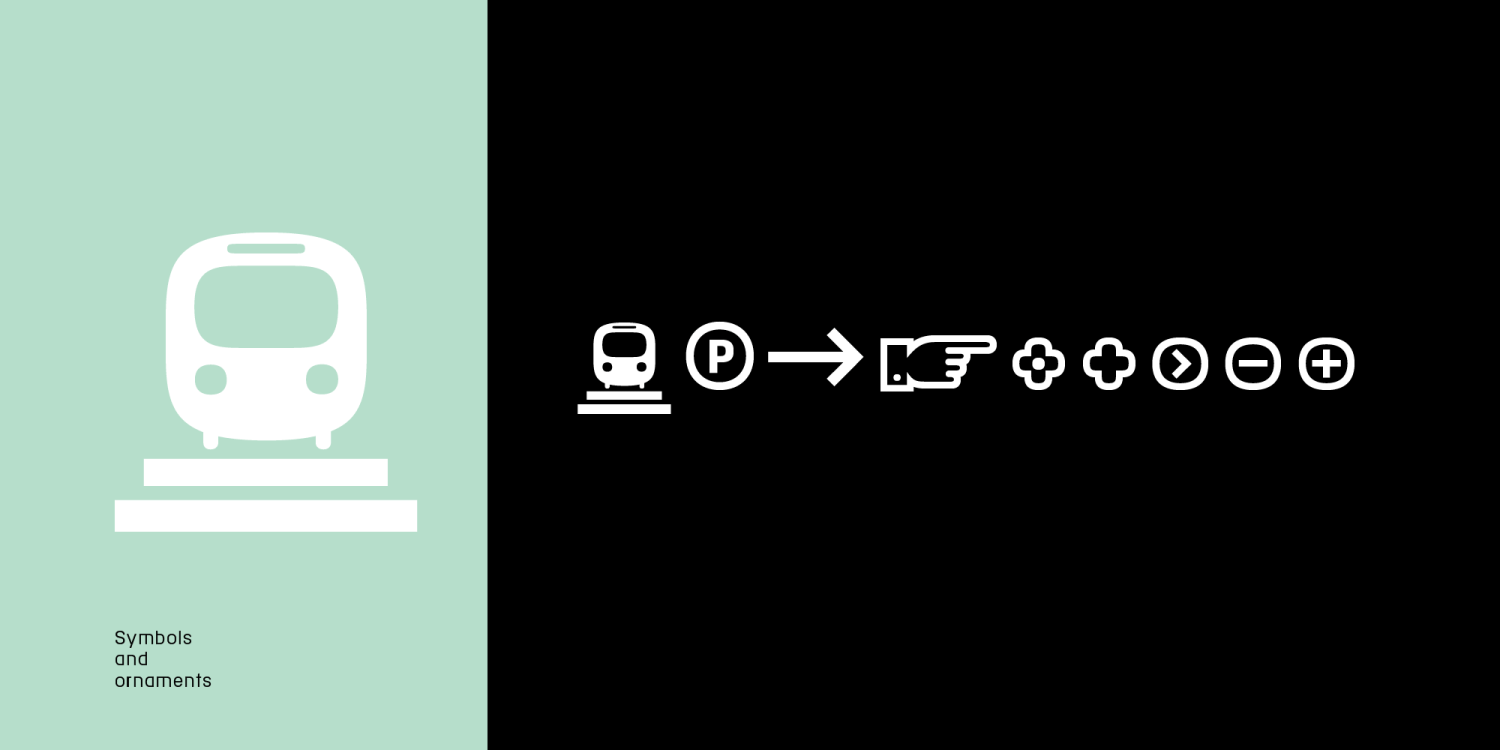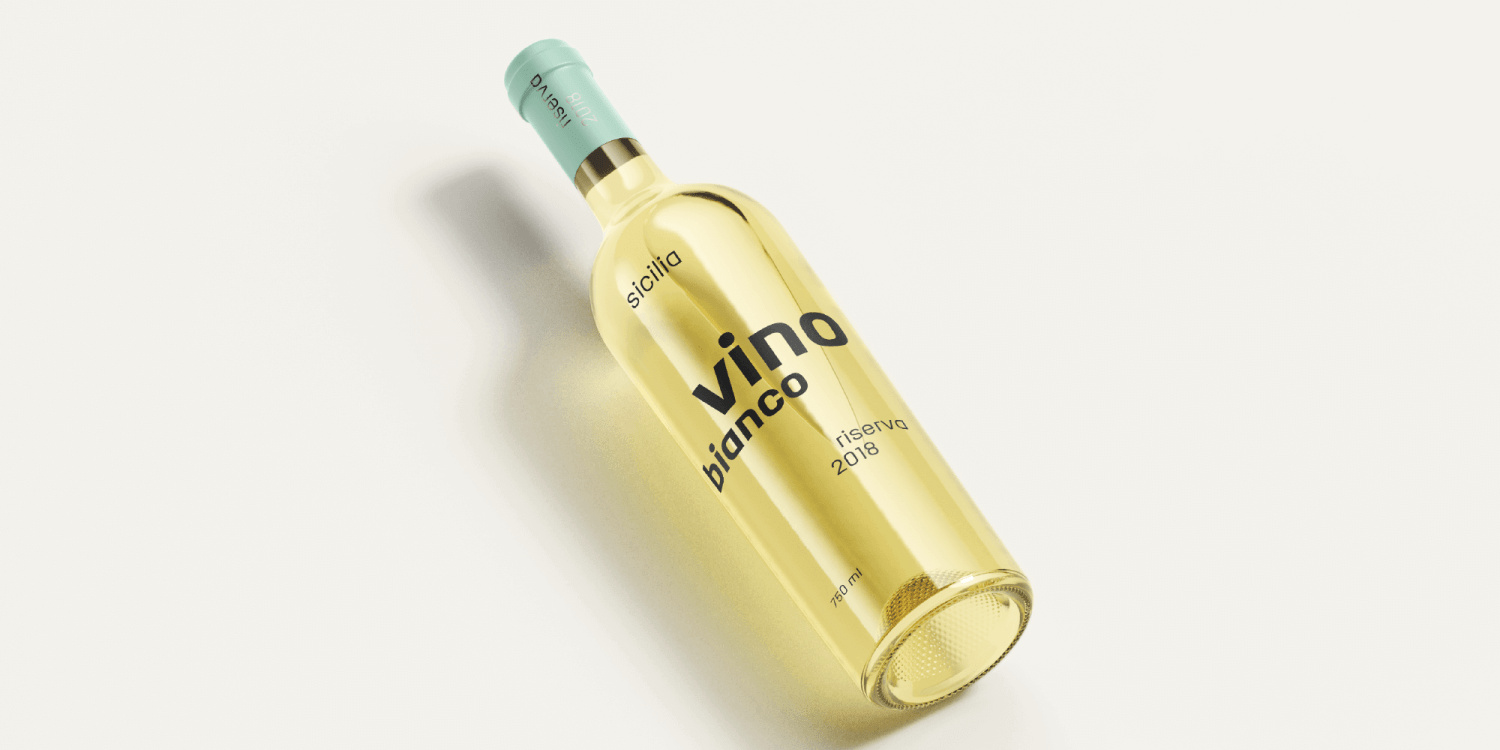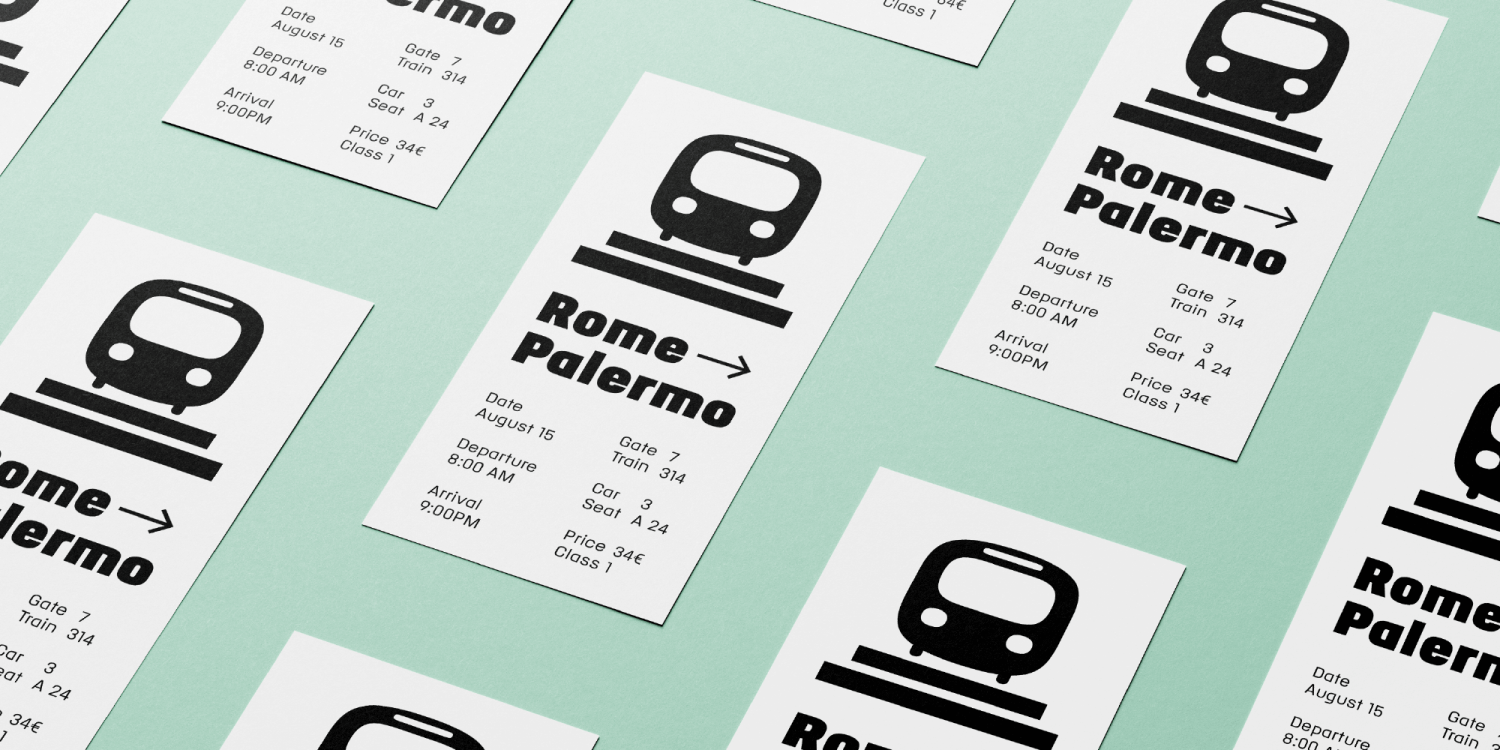
About Binario
Binario is a simple and friendly font with three weights and matching italics (obliques). It is an excellent choice for giving a clean, unique, and modern look to headlines or body text. Use it for branding, menus, posters, magazines, and screen-based…